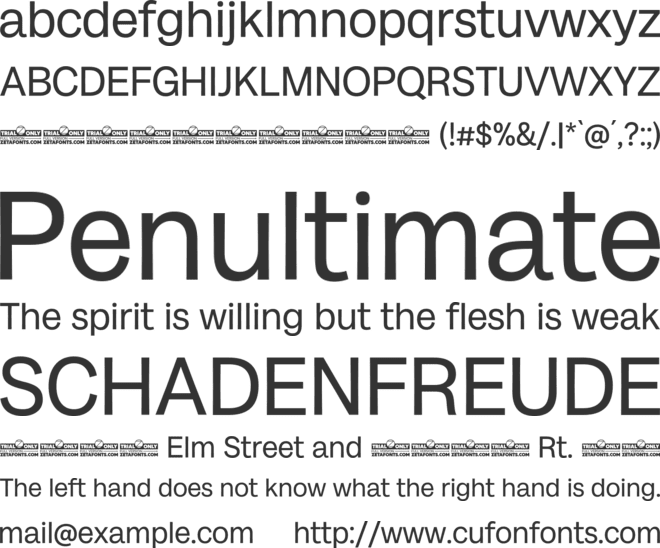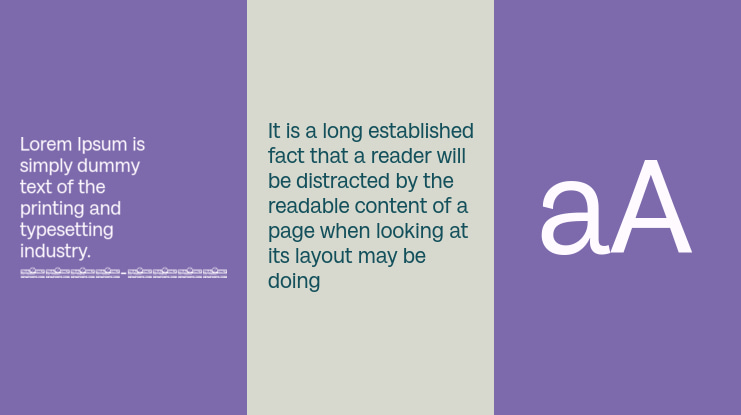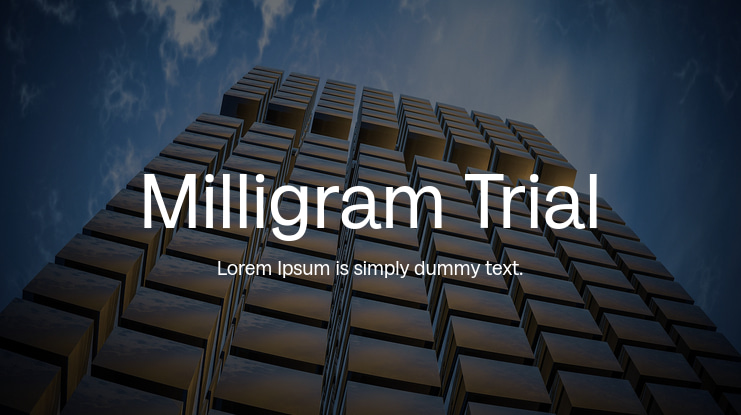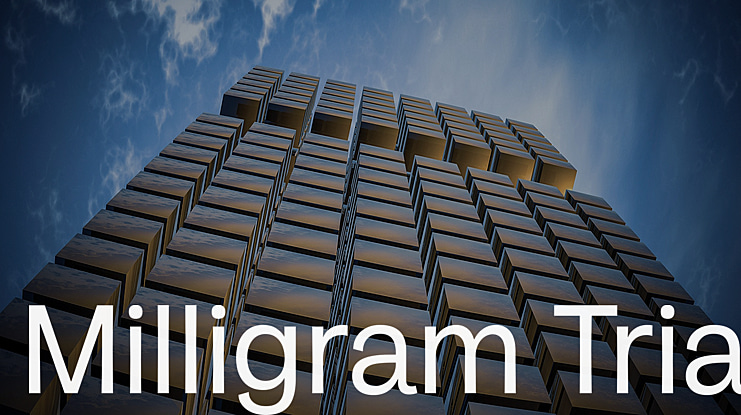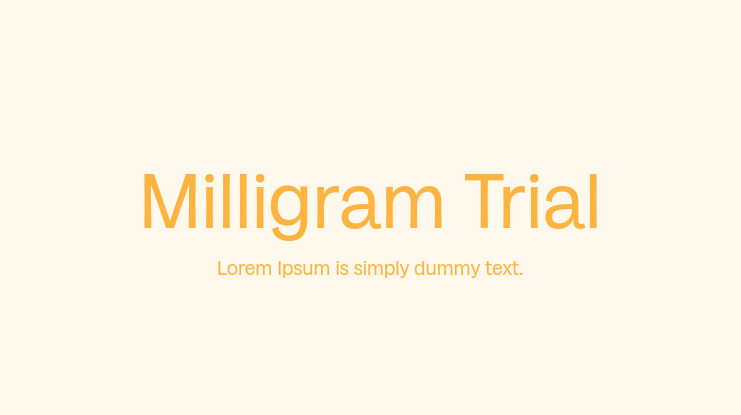
Milligram Trial Font Family
Cosimo Lorenzo Pancini
Grotesque sans typefaces: you know you wont ever get tired of those. And any moment you decide that Vignelli was right and one swiss font is enough, here comes a new specimen from the past inviting you to try new takes on the modernist letterforms. It's a tight and crowded design space, so design decisions are subtle and almost unnoticeable. Whoever you decide to be in the details - either God or the Devil - you surely need a taste for the infinitesimal to work with these shapes. Time design borders sandstoning shapes, in a delicate equilibrium between modernist precise ideals and the fascinating energy of old lead grotesques. The resulting typeface develops around an idiosyncratic relationship with negative space, inspired by the tight metrics modernist designers imposed on their layouts. Leaving a text optimised spacing to the text subfamily, Milligram plays with a feeling of attraction behind shapes, something brought to the extremes in the logo-oriented Milligram Tight Variant. Designed by Cosimo Lorenzo Pancini with Andrea Tartarelli, Milligram is a fine but bold homage to the Akzidenz Grotesk that never was.